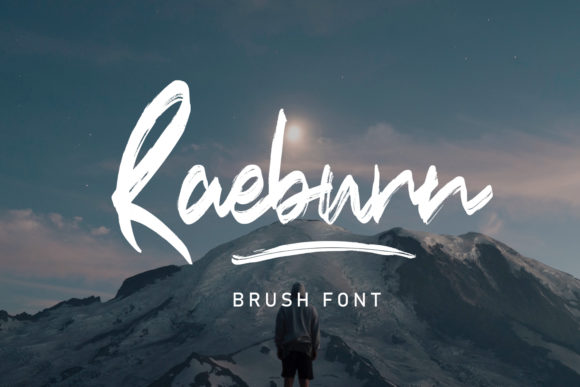
Indulge in the captivating world of Raeburn, a remarkable script font that embodies the allure of handwritten authenticity. Inspired by the skillful strokes of a brush pen and pencil, Raeburn exudes a charm that is both endearing and alluring.
Embrace the power of words with Raeburn, a font that dances across your designs with effortless grace. Its intricate curves and expressive characters will captivate your audience, leaving an unforgettable impression. Whether you're crafting logos, invitations, or social media posts, Raeburn will elevate your creations with a touch of sophistication and warmth.
Unleash your imagination with Raeburn, a font that invites you to explore the boundaries of creativity. Its versatile nature makes it the perfect choice for a wide range of projects, from branding and marketing to personal expression. Experience the joy of crafting unique designs that showcase your individuality and leave a lasting impact.
With Raeburn, the possibilities are endless. Its timeless appeal and enduring charm will add a touch of magic to your every project. Embrace the beauty of written words and elevate your designs to new heights with Raeburn, the font that will ignite your passion for typography.